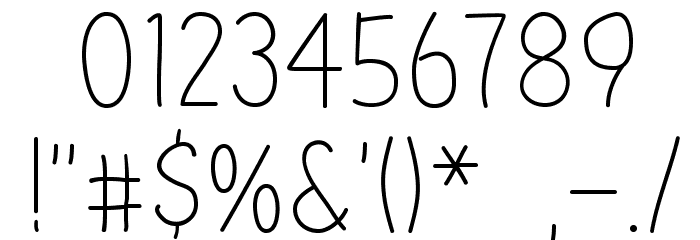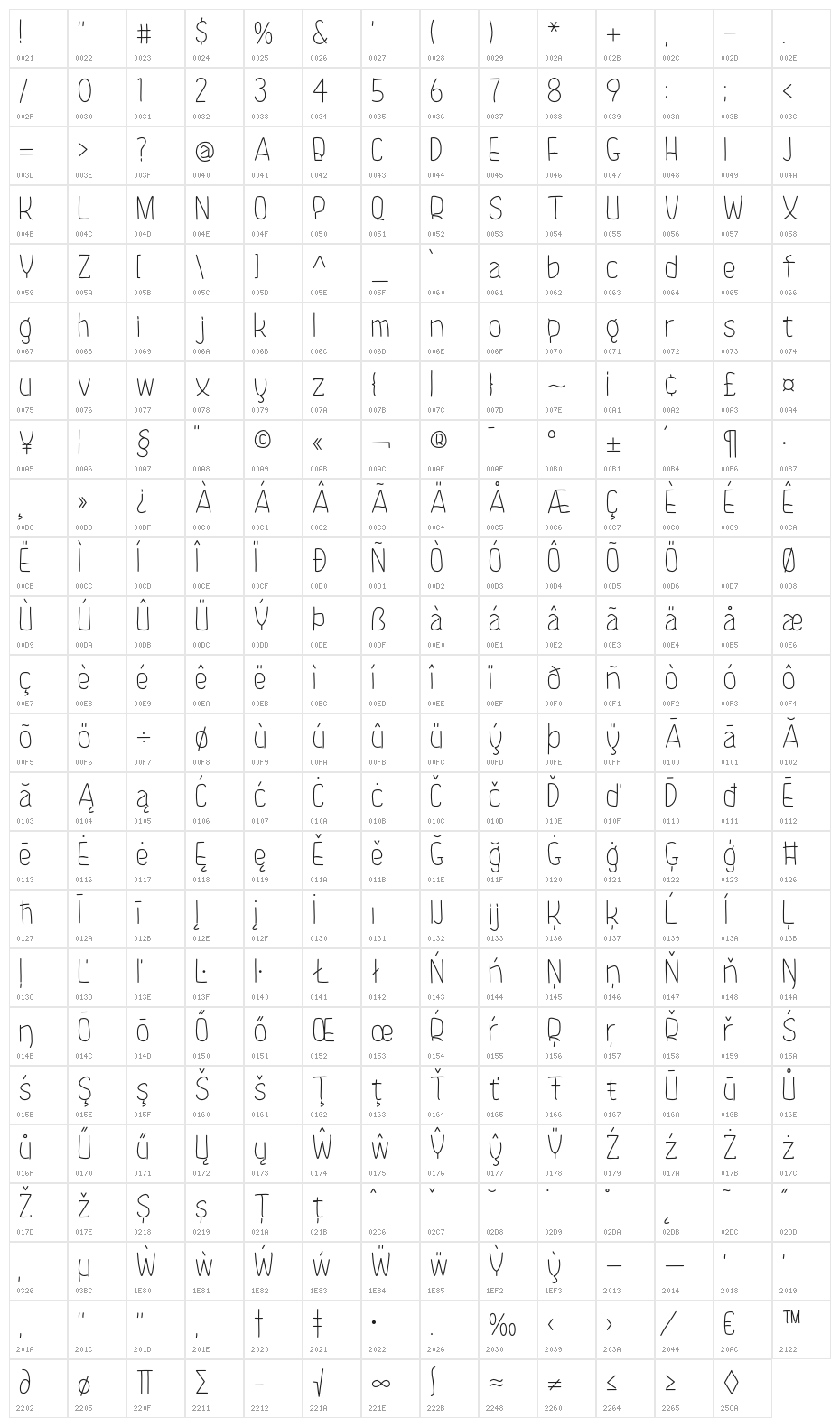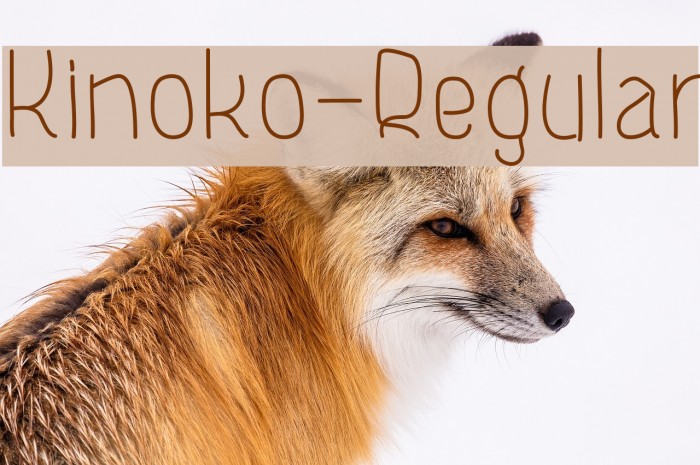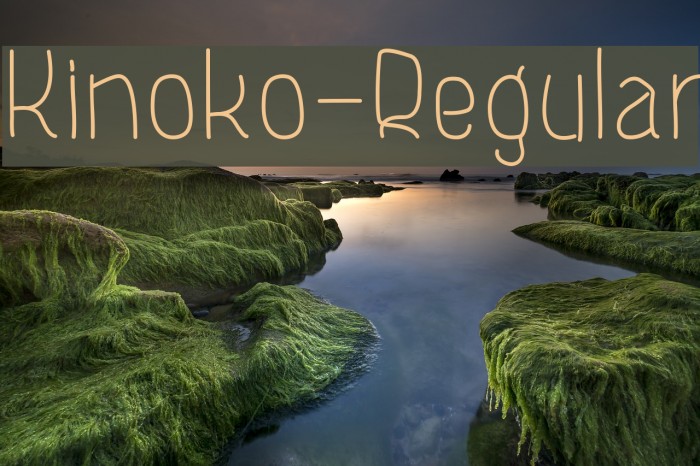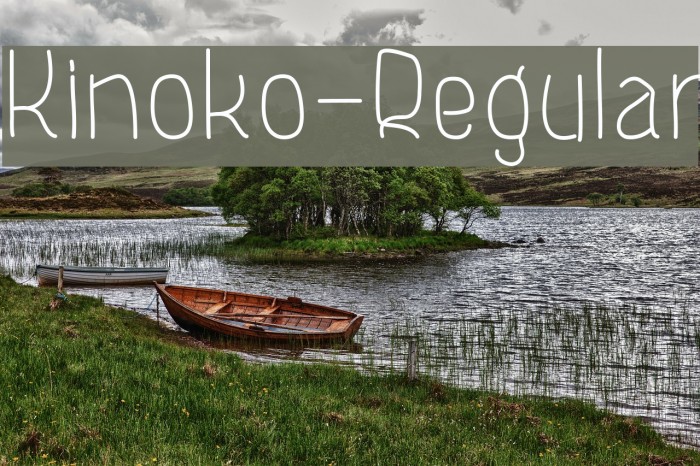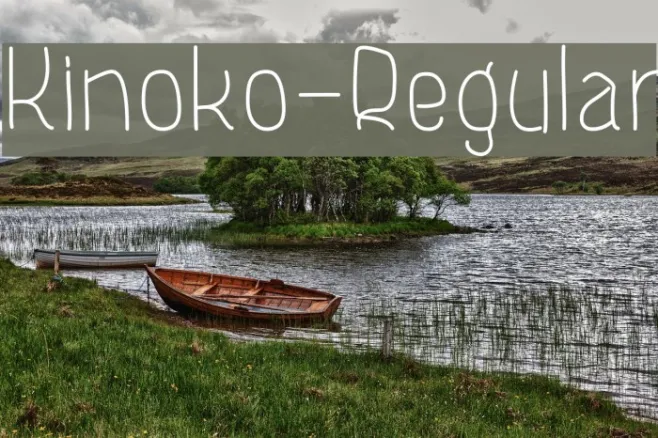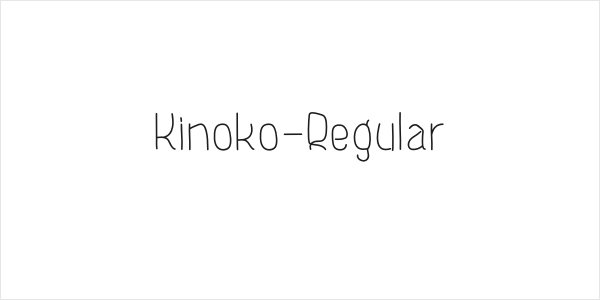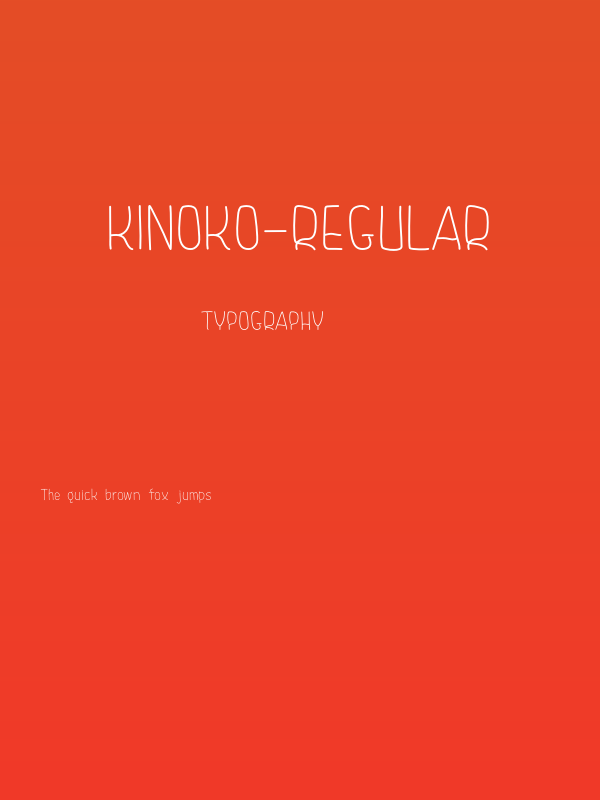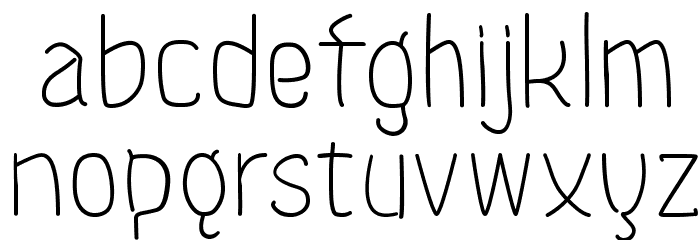
Kinoko-Regular Font
Kinoko-Regular Description
This font features a playful and whimsical design, characterized by its thin, hand-drawn strokes and slightly irregular shapes. The letters have a casual, informal appearance, with a touch of quirkiness that adds personality to the text. The uppercase and lowercase letters are consistent in style, maintaining a cohesive look throughout. Numbers and special characters are designed with the same playful aesthetic, making them suitable for creative projects. The overall feel is light-hearted and approachable, perfect for conveying a sense of fun and creativity.